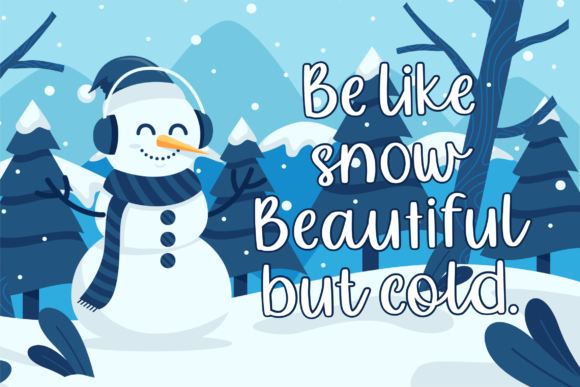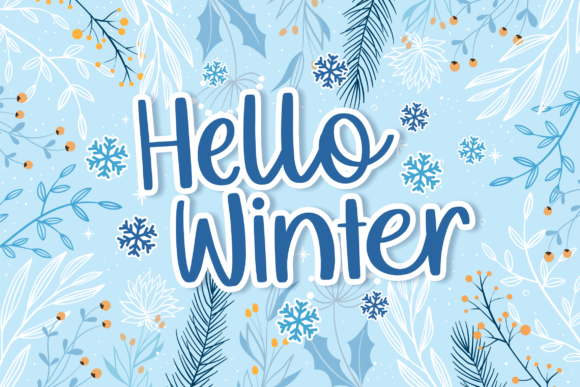
About Mealky Winter Font
Mealky Winter is a simple, natural and adaptable handwritten font. Dainty and joyful, this font will be ideal for writing wedding invitations, cards or any other design that may need a romantic, personalized touch!